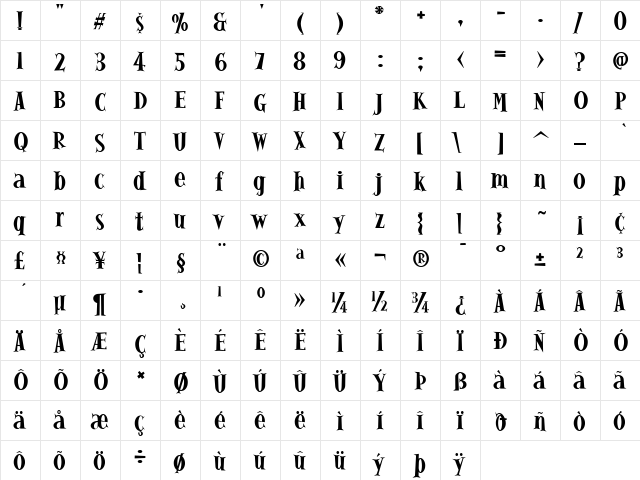
AlleycatICG Bold Font Preview
AlleycatICG Bold
Design Context for AlleycatICG Typeface
AlleycatICG is a composed and adaptable typeface that performs quietly and consistently across a wide range of design contexts. Its bold stroke weight gives it real presence on the page.